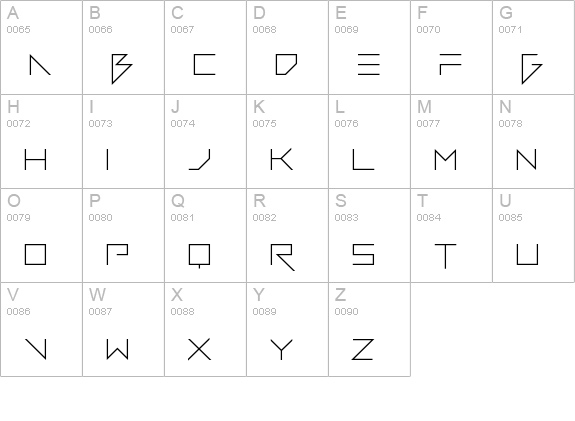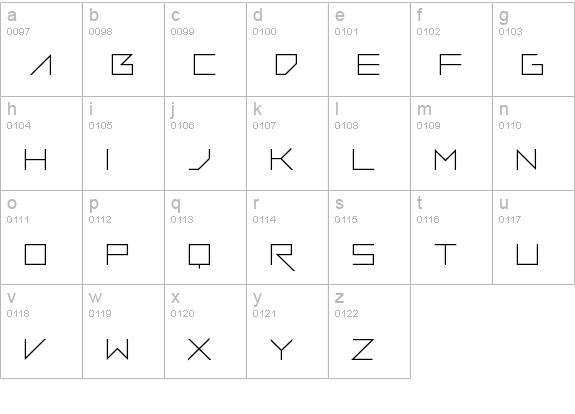
Vermin Vibes Diet Regular Font Details
Vermin Vibes Diet Regular is the standard, neutral variant in the Vermin typeface family \xE2\x80\x94 well suited to general body text, paragraphs, and standard typographic work.
Vermin Vibes Diet Regular font is a sleek and modern typeface designed to make your text stand out with its clean lines and contemporary style. This font is perfect for a variety of projects, from branding to editorial design, thanks to its versatility and readability. What sets Vermin Vibes Diet Regular font apart is its unique balance between sophistication and approachability, making it a great choice for both professional and creative endeavors. Whether you're designing a sleek business presentation or crafting an eye-catching poster, this font is sure to elevate your work to the next level. Best of all, Vermin Vibes Diet Regular font is available for free download at FontsMarket.com, so you can start using it in your projects right away without breaking the bank. Don't miss out on this fantastic opportunity to enhance your designs with a high-quality font that won't cost you a dime. Download Vermin Vibes Diet Regular font today and see the difference it can make in your work!